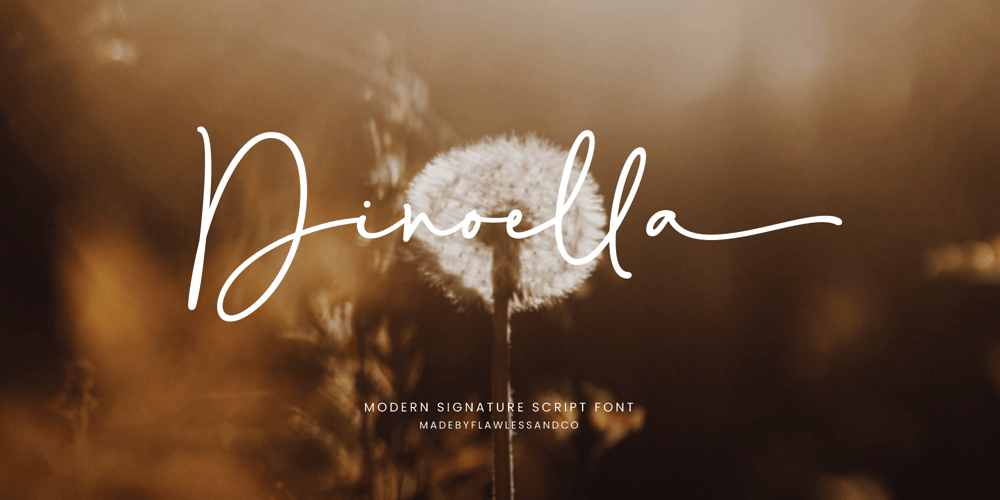
Dinoella
Dinoella font
Dinoella Font Family was designed by Achmad Yani and published by Flawlessandco. Dinoella contains 1 styles and family package options. Introducing “Dinoella” a modern signature script font. Elevate your designs with “Dinoella,” a modern signature script font that exudes elegance and sophistication. With its flowing curves and stylish flourishes, Dinoella adds a touch of personal flair to any project, whether it’s branding, invitations, or social media graphics.Keywords: Script Font, Signature FontThere’s some connected letters and some alternates that suitable for any graphic designs such as branding materials, t-shirt, print, business cards, logo, poster, t-shirt, photography, quotes .etcThis font support for some multilingual. Also contains uppercase A-Z and lowercase a-z, alternate character, numbers 0-9, and some punctuation.If you need help, just write me! Thanks so much for checking out my shop!